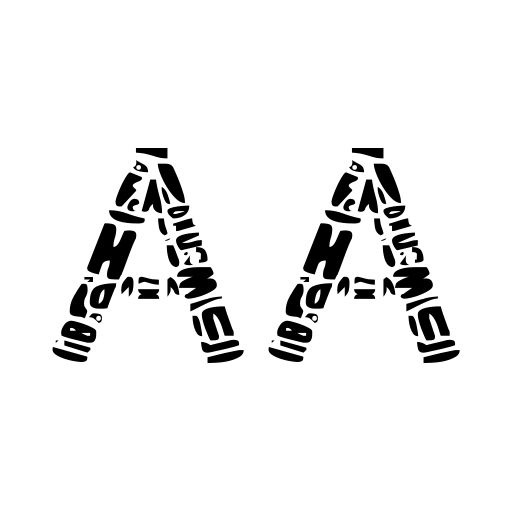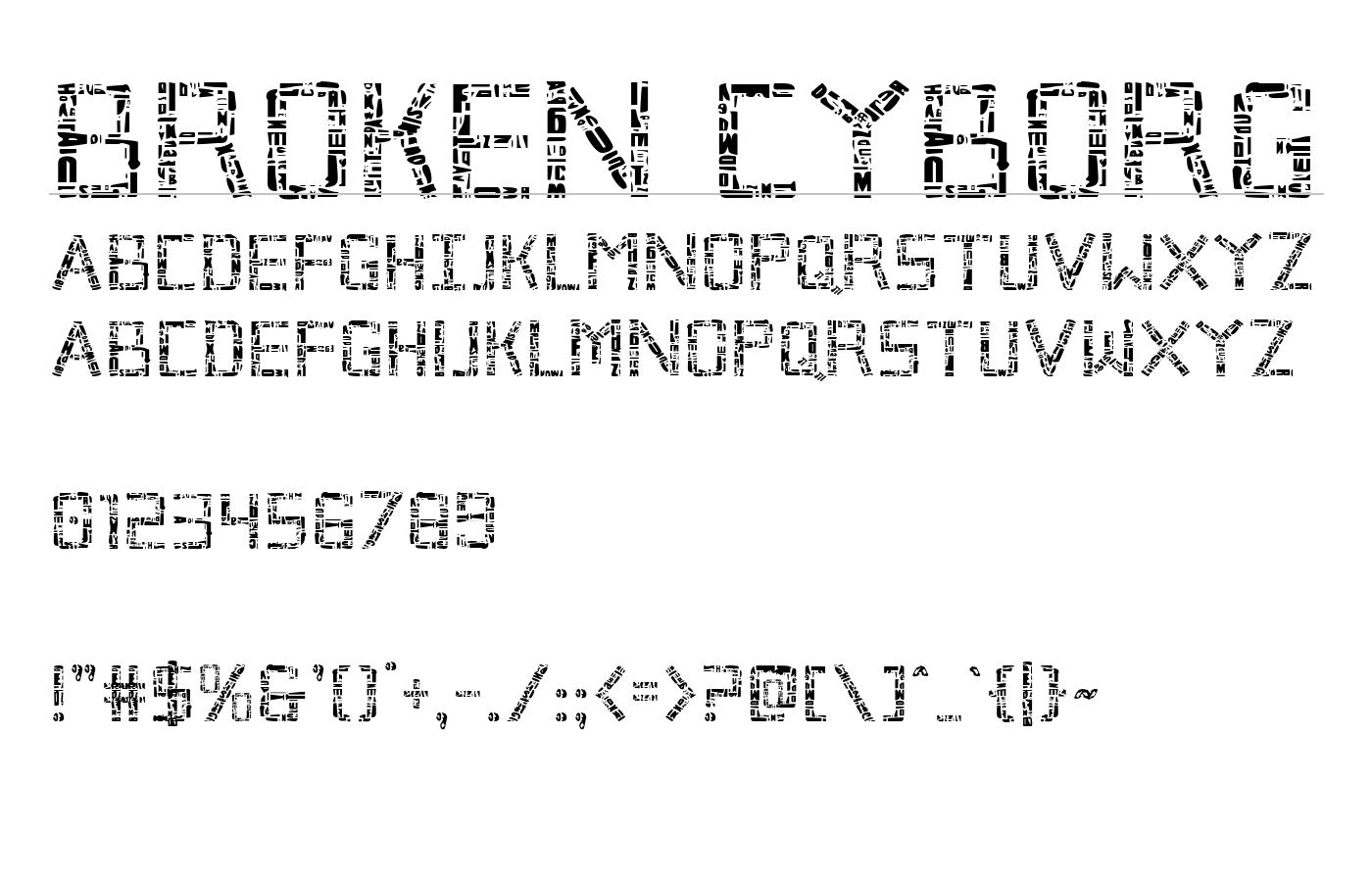
Broken Cyborg is a bold, condensed sans serif font with a high-tech, fragmented look that resembles digital glitches or machine parts. Its sharp, blocky letterforms and textured, broken patterns give it a futuristic and edgy vibe, perfect for sci-fi themes, tech branding, and display uses where a strong, modern impact is needed. This font works best in headlines, posters, and logos seeking a cybernetic or dystopian aesthetic.
Broken Cyborg Font
About Broken Cyborg Font